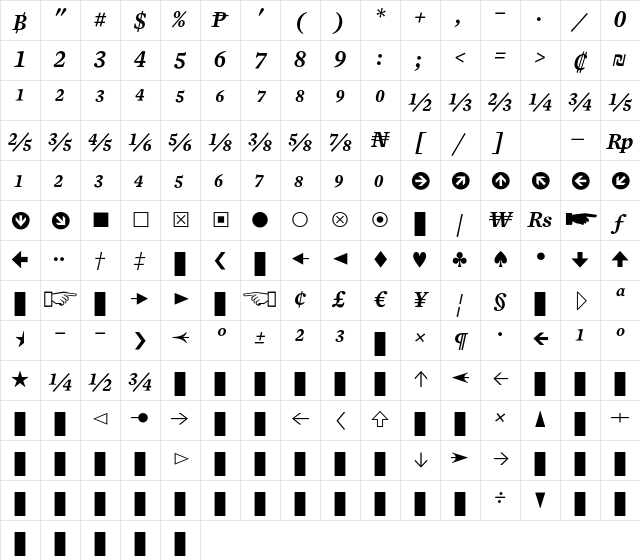
Complete Mercury Numeric G1 Semi Italic glyph index. Displaying only characters natively supported by Mercury Numeric G1 Semi Italic font.
Mercury Numeric G1 is a composed and adaptable typeface that performs quietly and consistently across a wide range of design contexts. The slanted form adds forward momentum and visual energy.